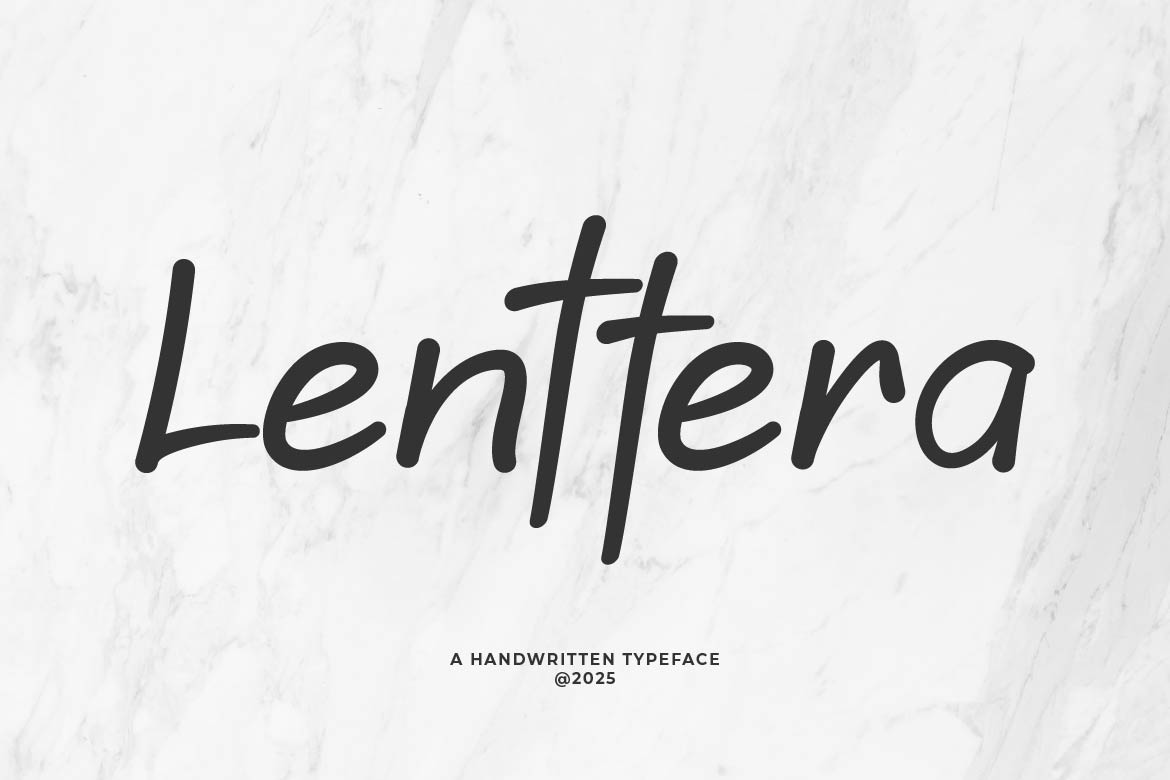
- Lenttera Beautiful Handwritten Font
Lenttera is a beautifully handcrafted handwritten font that captures the charm of genuine handwriting with a smooth and natural flow. Designed to bring warmth and authenticity to your creative projects, Lenttera blends casual elegance with a personal touch, making it perfect for logos, invitations, social media quotes, branding, packaging, and greeting cards.
Each letter is carefully drawn to maintain a balanced rhythm and natural texture, giving your design an approachable yet stylish feel. Its gentle curves and clean strokes create a harmonious aesthetic that fits both modern and classic layouts.
Add a personal, heartfelt touch to your typography with Lenttera, a handwritten font that radiates sincerity and timeless charm.
- Ligature